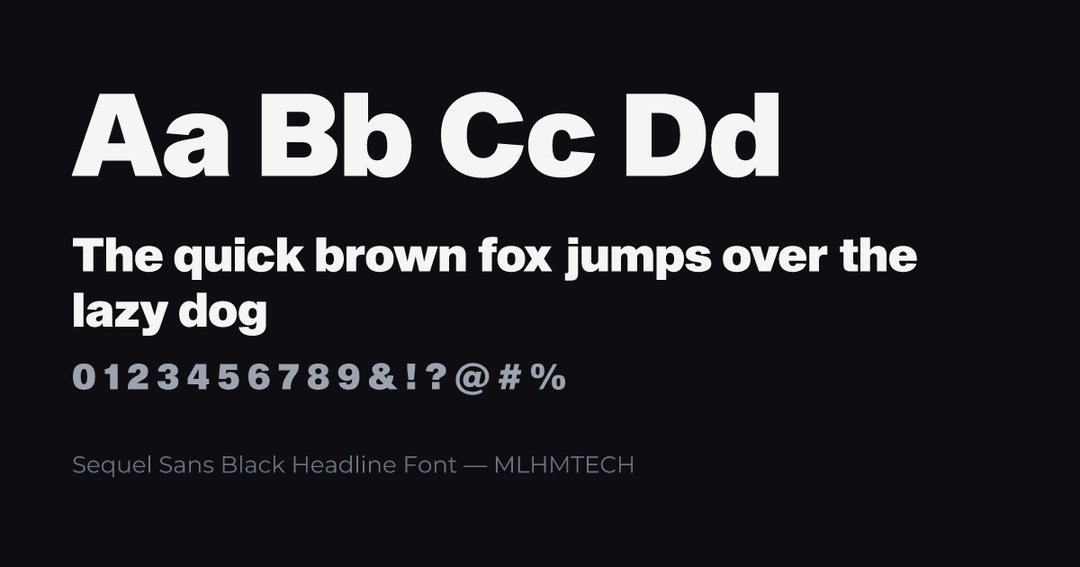
Sequel Sans Black Headline Font
Sequel Sans Black is a bold, geometric sans-serif font ideal for headlines, logos, and impactful designs. Its clean lines and strong presence make it a versatile choice for modern creative projects.
Sequel Sans Black is a high-contrast, geometric sans-serif typeface that commands attention. Its thick, uniform strokes and sharp terminals give it a modern, confident feel, perfect for headlines, posters, and branding materials. The font's clean design ensures excellent legibility even at large sizes, making it a go-to for titles and display use.